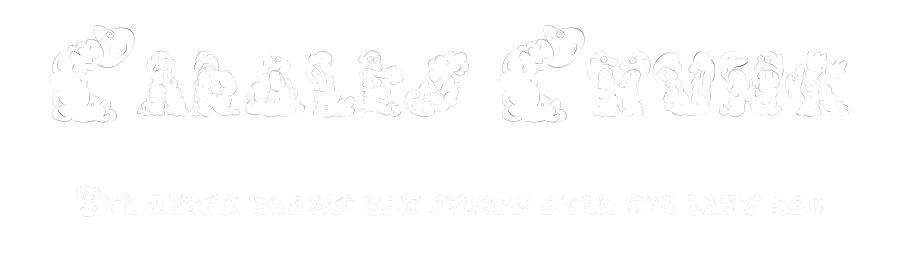
About Brains Font
Also the illustration was done by designer Oscar Bauer
p.s. I created this font on my iPad with the app FontMaker so you'll need to play with the kerning. Also if the lines seem thin its meant to be a colored font so play with the positive and negative space. You know be a designer and make it work for your project or not.